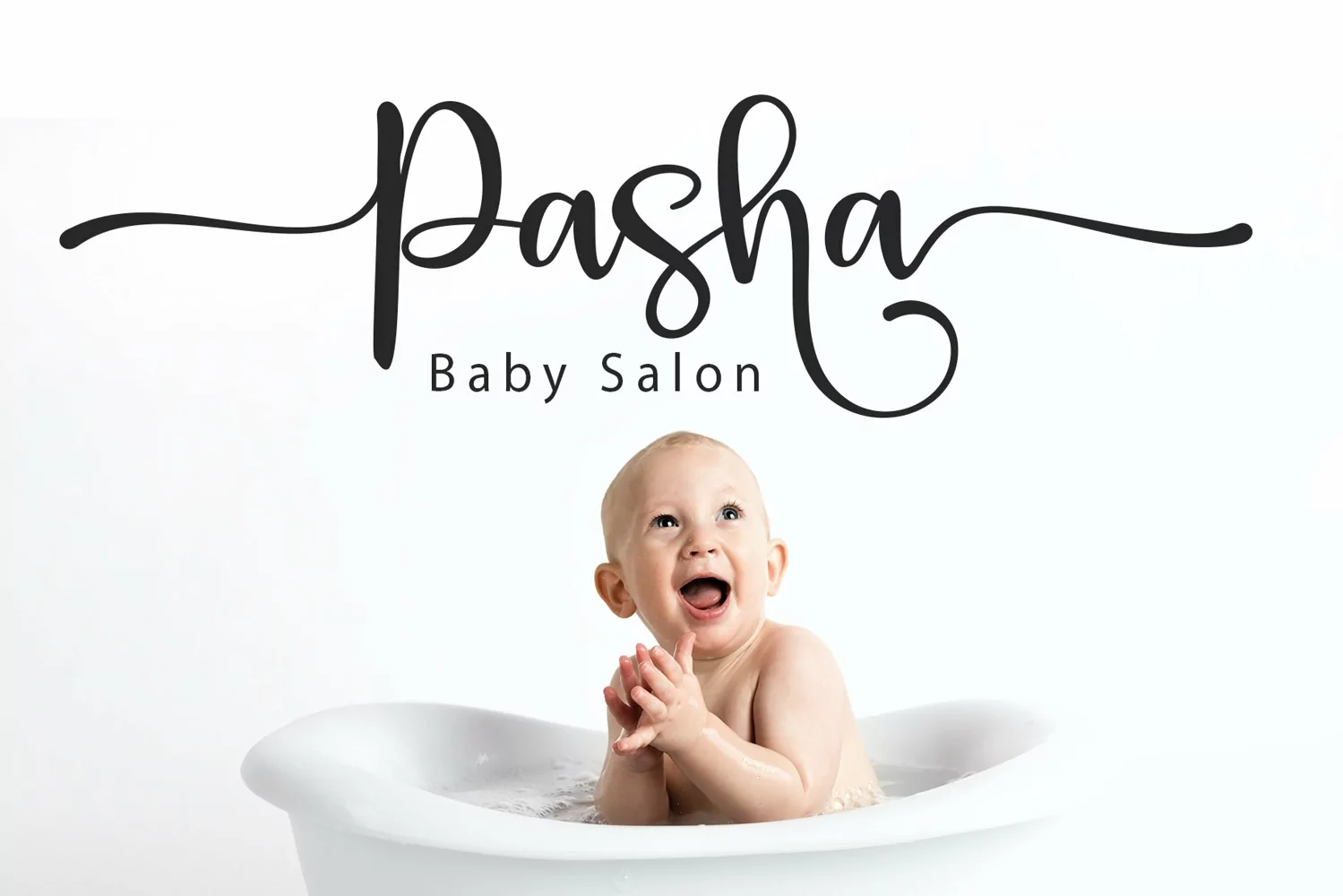
Baby Story
Introducing Baby Story
The script font with a handwritten style inspired by a very cute baby story fits well with this beautiful handwriting with a heart that can be connected or a heart on each end of the letter or also a middle letter that rises up or down. Baby Story comes with 567 glyphs.